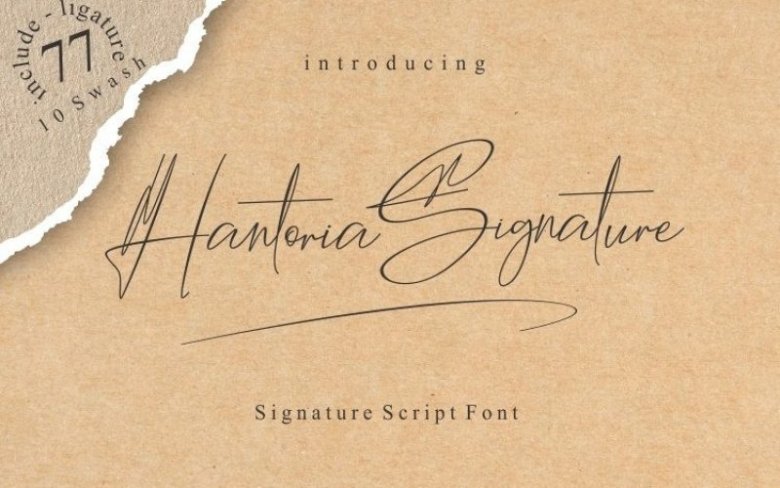
Hantoria Signature Font Free
Hantoria Signature a Signature Script font. This font
will looks awesome and amazing in many way to your latest project.
Hantoria Signature is perfect for many different
project such as logos & branding, invitation, stationery, wedding
designs, display, social media posts, advertisements, product packaging, product
designs, label, photography, watermark, special events or anything.